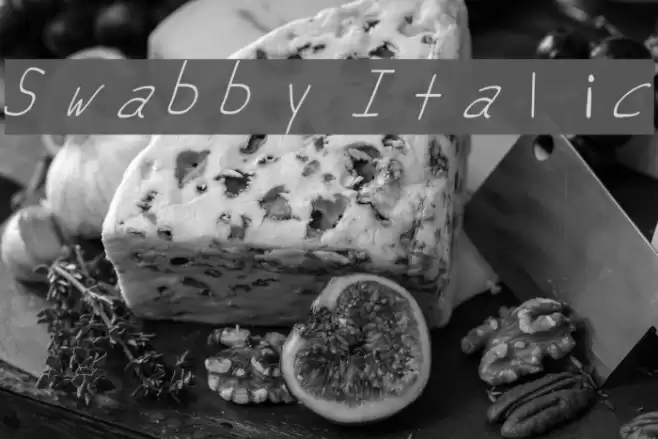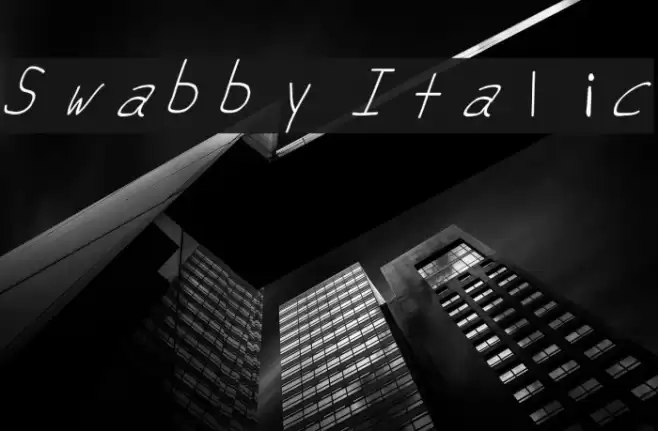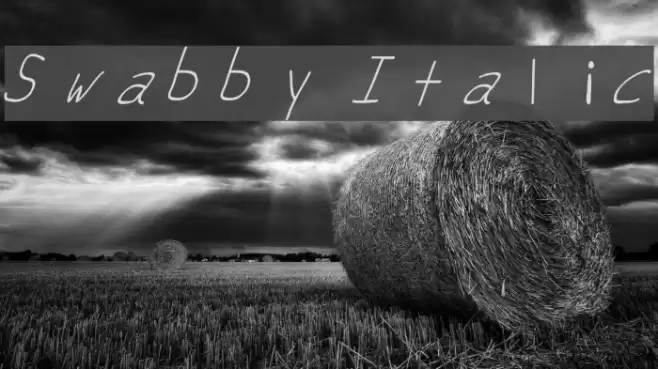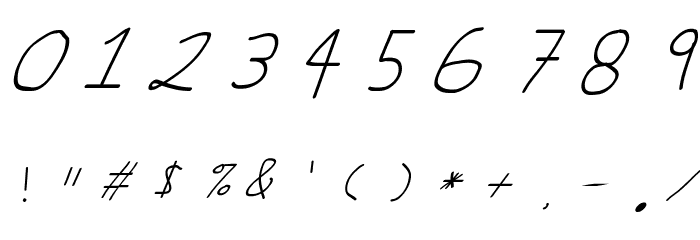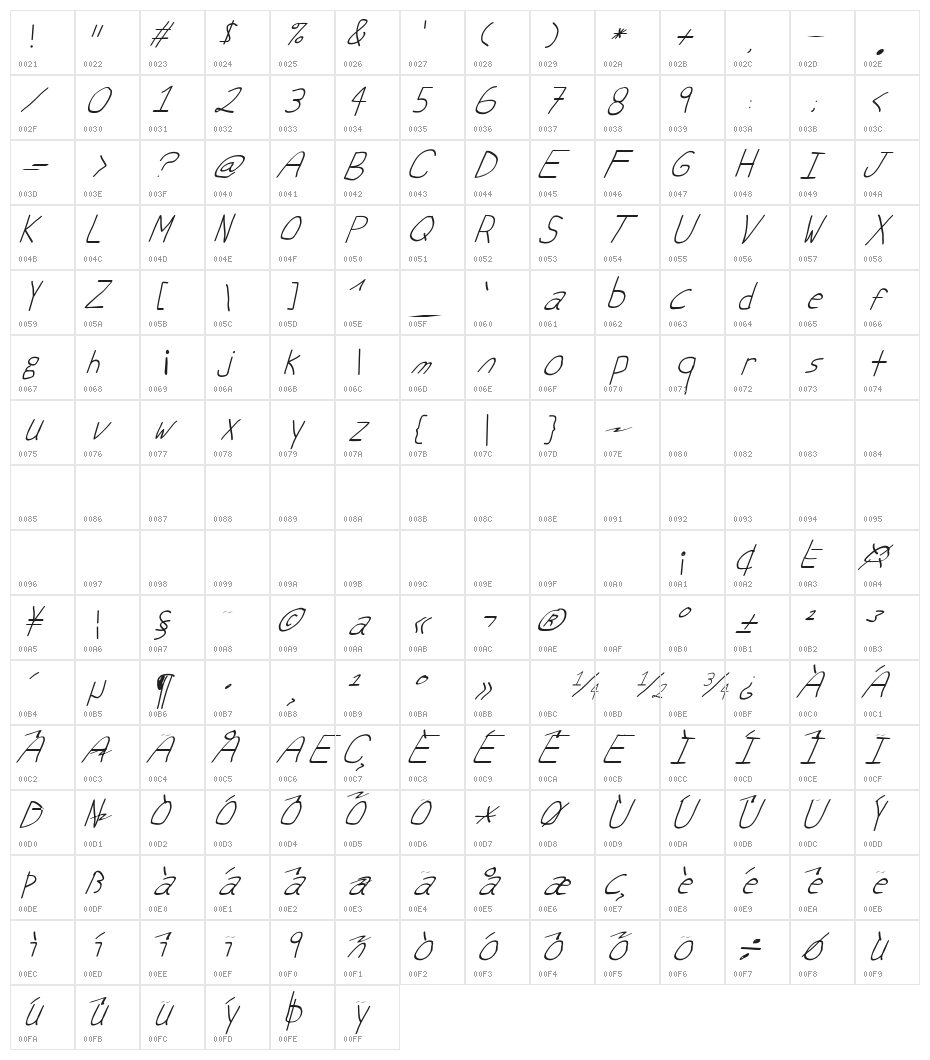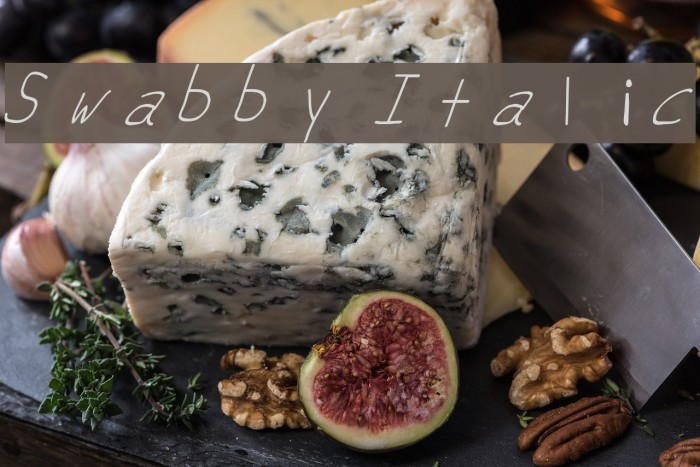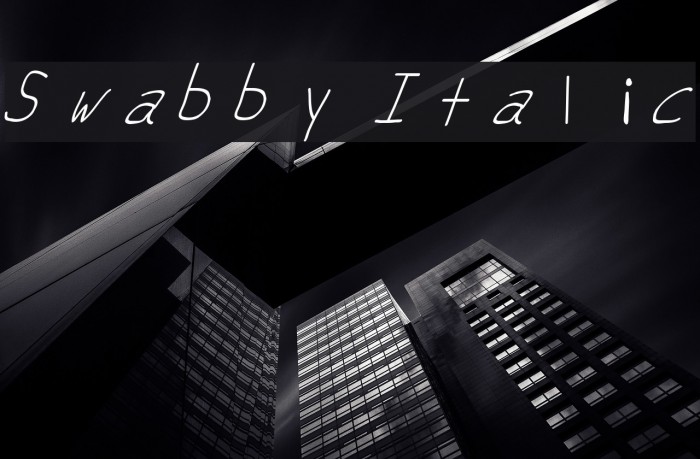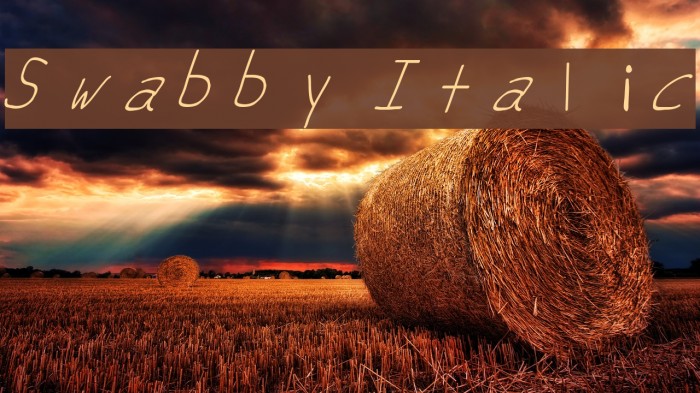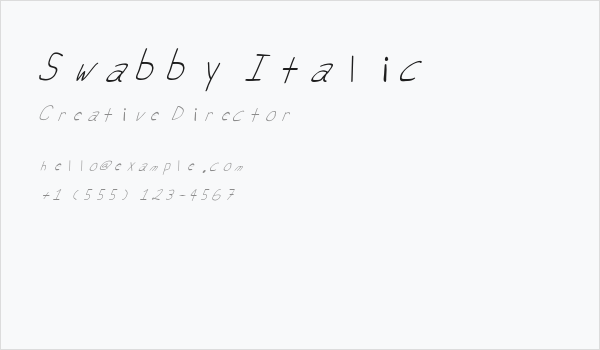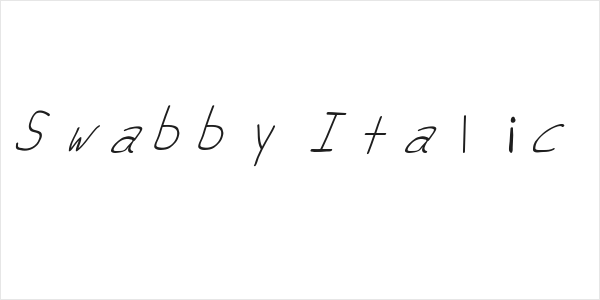
Swabby Italic Font
Swabby Italic Description
This font features a casual, handwritten style with a slight slant, giving it an informal and approachable appearance. The characters are thin and slightly elongated, with a consistent stroke width that maintains readability. The uppercase letters are distinct and well-defined, while the lowercase letters have a playful, flowing quality. The numerals are clear and straightforward, complementing the overall style. Special characters are included, maintaining the font's cohesive look. This font's simplicity and charm make it versatile for various design needs.
A casual, handwritten font with a slight slant and consistent stroke width from Uncategorized fonts.
- Proposed Projects: Ideal for personal notes, invitations, casual branding, and creative projects.
- Overall Style: Casual
- Use Case: Invitations, Personal notes, Casual branding